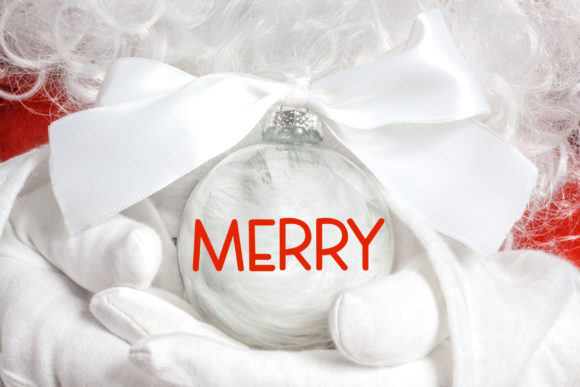
The Perfect Font for a Cozy Creative Moment
You know that feeling when you’re brainstorming a new design and you stumble upon the perfect font? It’s like the entire project just falls into place, and you can’t help but feel a sense of excitement and accomplishment. For me, that font is often Cozy Caps Font, a casual sans-serif font that brings a down-to-earth feel to any design.
Whether you’re working on a website, a logo, or a social media campaign, Cozy Caps Font is the perfect choice to give your designs a relaxed and authentic vibe. Its versatility makes it a valuable asset for designers who want to create a sense of warmth and approachability in their work.
Cozy Caps Font Features
- Font Family: Cozy Caps is a unique, sans-serif font designed to evoke a sense of warmth and comfort.
- Unique Characteristics: Cozy Caps features a distinctive, rounded shape with subtle curves and a soft, friendly feel.
- Kerning and Ligatures: Includes advanced kerning and ligature features to ensure smooth, professional-looking text.
Cozy Caps Font Review
I recently had the chance to work with the Cozy Caps Font, and I have to say, it’s a mixed bag. Here’s my honest review.
- Unique and Creative: The Cozy Caps Font is a refreshing take on traditional font styles. Its unique design elements, such as the rounded caps and the subtle texture, make it perfect for creating eye-catching designs.
- High-Quality Vectors: The font files are well-designed and easy to work with, even at high resolutions.
- Perfect for Brands: The font’s warm and inviting feel makes it ideal for brands that want to convey a sense of comfort and approachability.
- Not Suitable for Body Text: Due to its unique design, the Cozy Caps Font can be difficult to read in large blocks of text. It’s best used for headings and titles.
- Limited Character Set: The font doesn’t include a wide range of special characters, which can be a limitation for some designers.
Overall, I think the Cozy Caps Font is a great addition to any designer’s toolkit, as long as you know its limitations. With its unique design and high-quality vectors, it’s perfect for creating attention-grabbing headings and titles. However, it’s not the best choice for body text or projects that require a wide range of special characters.
Some common use cases for Cozy Caps Font include:
- Home decor and furniture labels
- Gift tags and packaging